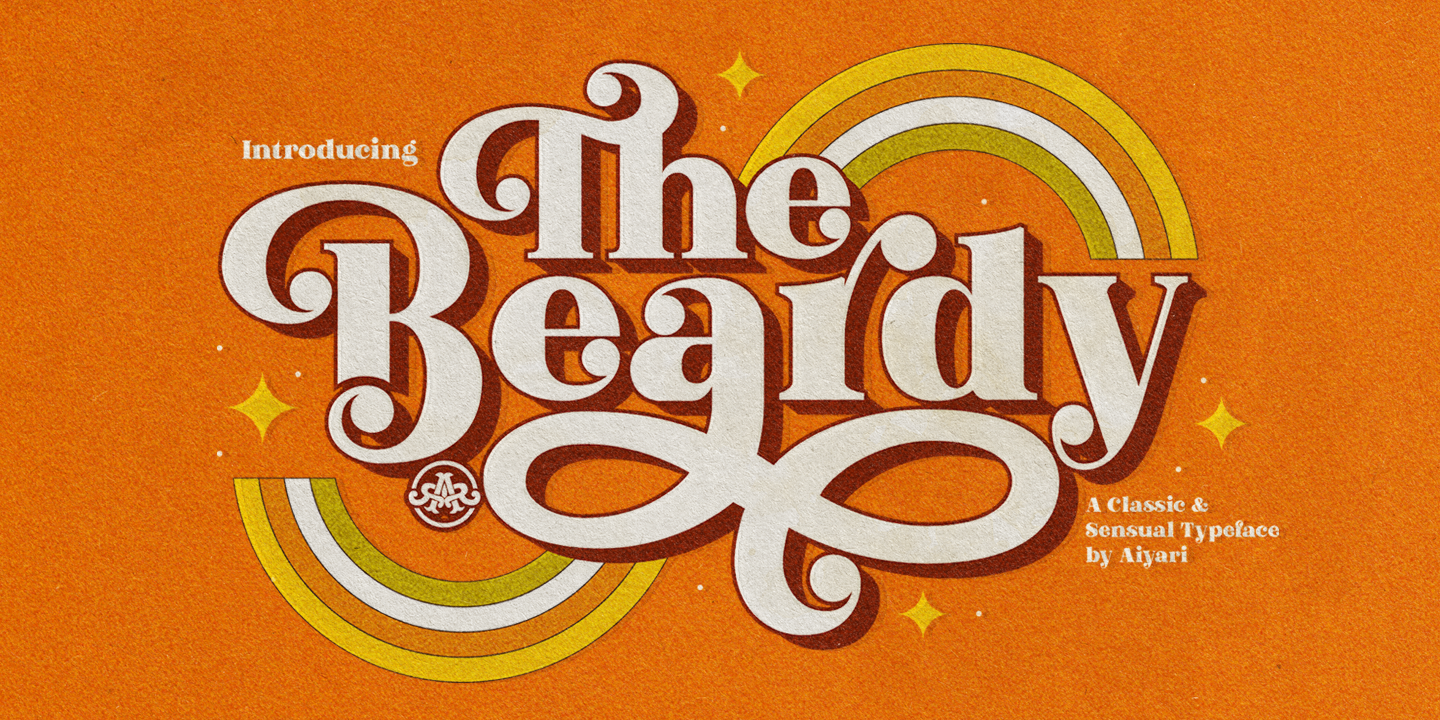
Discover rugged charm with The Beardy Font Free Download, a distinctive typeface that captures the essence of masculine style and artisanal craftsmanship. This unique font brings authentic character to any design project, making it perfect for brands seeking to convey strength, tradition, and handcrafted quality.
The Beardy Font features bold letterforms with organic textures and vintage-inspired details that evoke feelings of craftsmanship and authenticity. The font excels in barbershop branding, craft brewery logos, outdoor adventure companies, artisan food products, vintage clothing brands, and masculine lifestyle marketing materials. Its rugged personality creates instant brand recognition while maintaining professional appeal.
This versatile typeface performs exceptionally well across various mediums, from storefront signage to product packaging. Whether you're designing business cards, creating social media graphics, developing brand identities, or crafting promotional materials, The Beardy Font delivers consistent character and readability that resonates with target audiences seeking genuine authenticity.
Creative professionals appreciate The Beardy Font Free Download for its ability to communicate tradition and craftsmanship without appearing outdated. The font works brilliantly for men's grooming brands, craft distilleries, woodworking businesses, leather goods companies, and any enterprise wanting to project artisanal quality through thoughtful typography choices.
The comprehensive The Beardy Font package includes multiple weights and alternates, offering designers complete flexibility for creating cohesive brand systems. Each character demonstrates careful attention to detail, ensuring optimal performance across all applications from large-scale displays to small-format materials.
Perfect for graphic designers, brand developers, and marketing professionals, this font bridges vintage appeal with contemporary functionality. The Beardy Font supports extensive character sets, making it suitable for international campaigns and diverse content requirements.